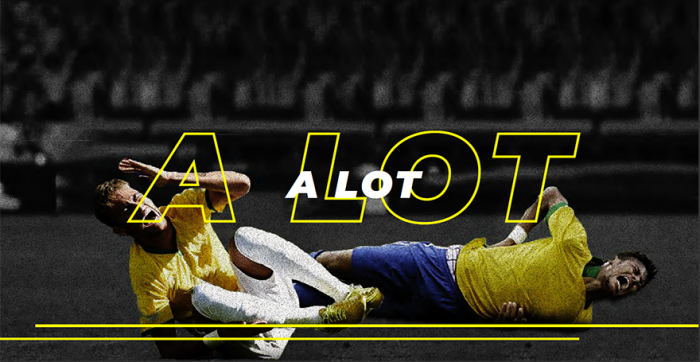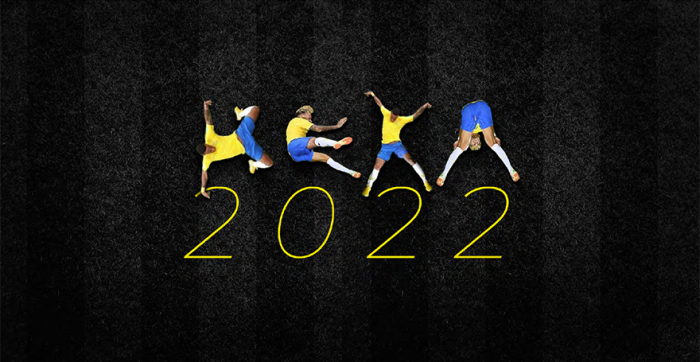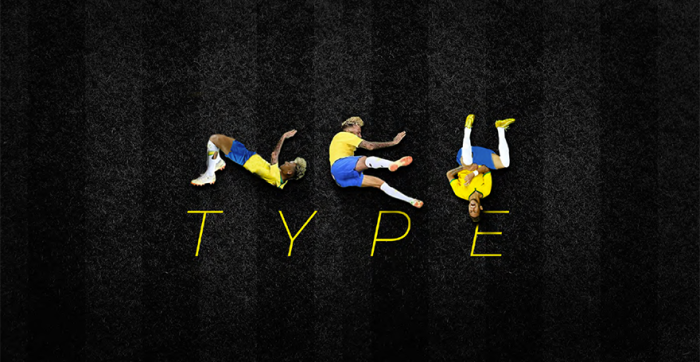
Neymar's Dramatic World Cup Fall Has Been Turned Into A Free Font, And It's Hilarious
The 2018 FIFA World Cup is coming to an end, and like every year, it has created it's fair share of memes. The biggest highlight of the last World Cup was probably Luis Suárez, the Uruguayan player who bit another player. Well, this year's World Cup meme highlight is definitely Neymar's overly dramatic fall.
In fact, the fall was so over the top, it even inspired someone to create a font! Luciano Jacob, a Brazil-based art director for a media company called Mutato, has created a typeface called Ney Type featuring all of Neymar's greatest falls. The font is completely free and from now you can use it to write essays or take other important notes. You can download it here.